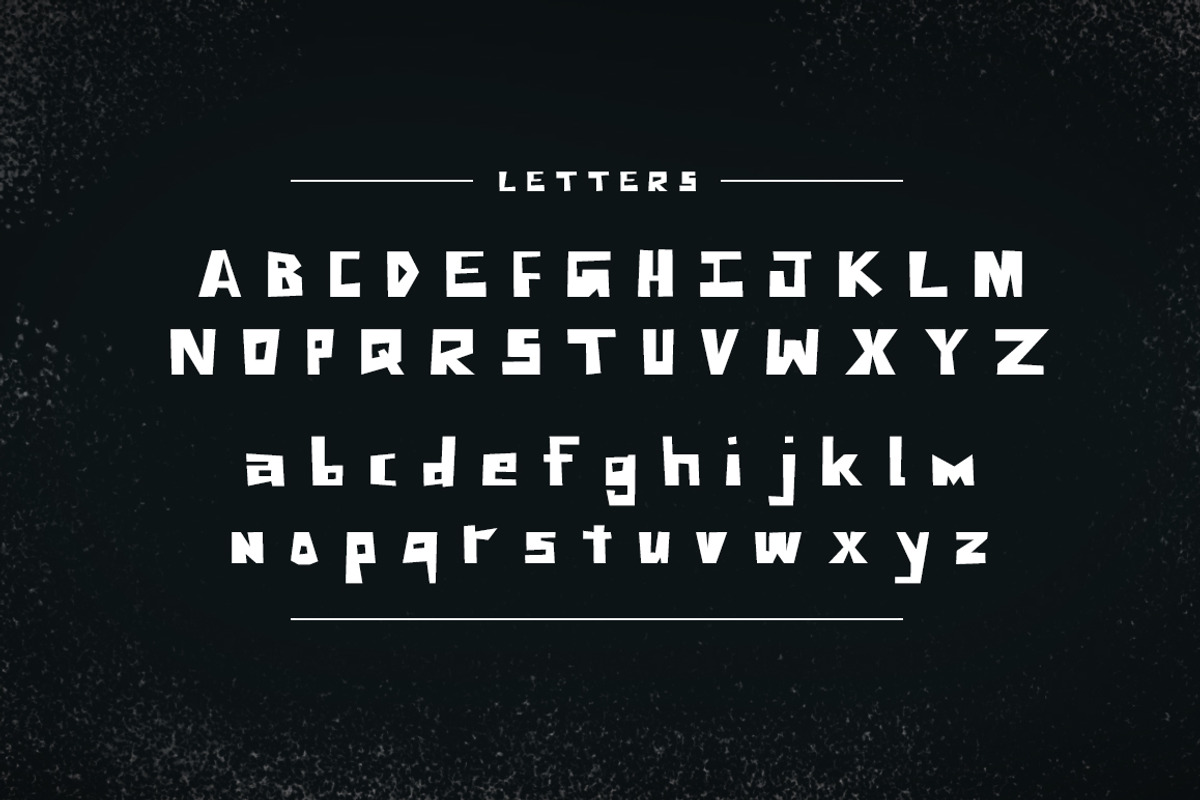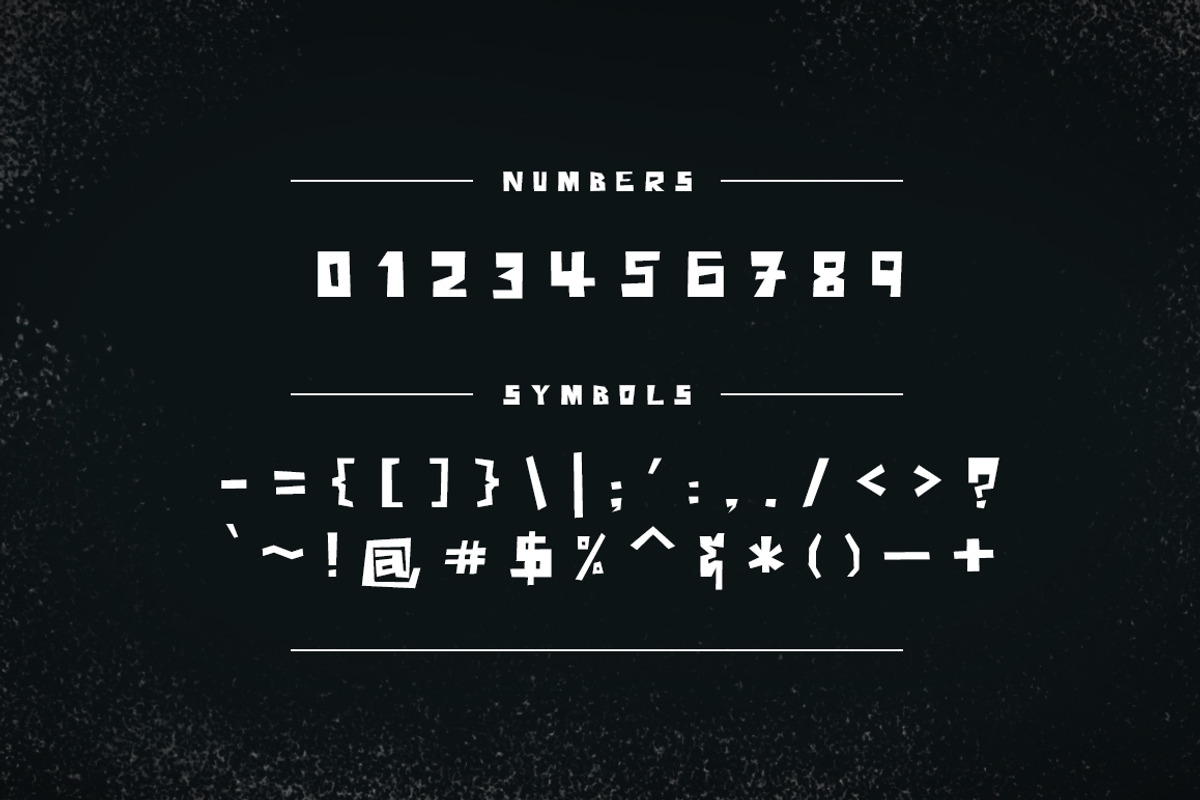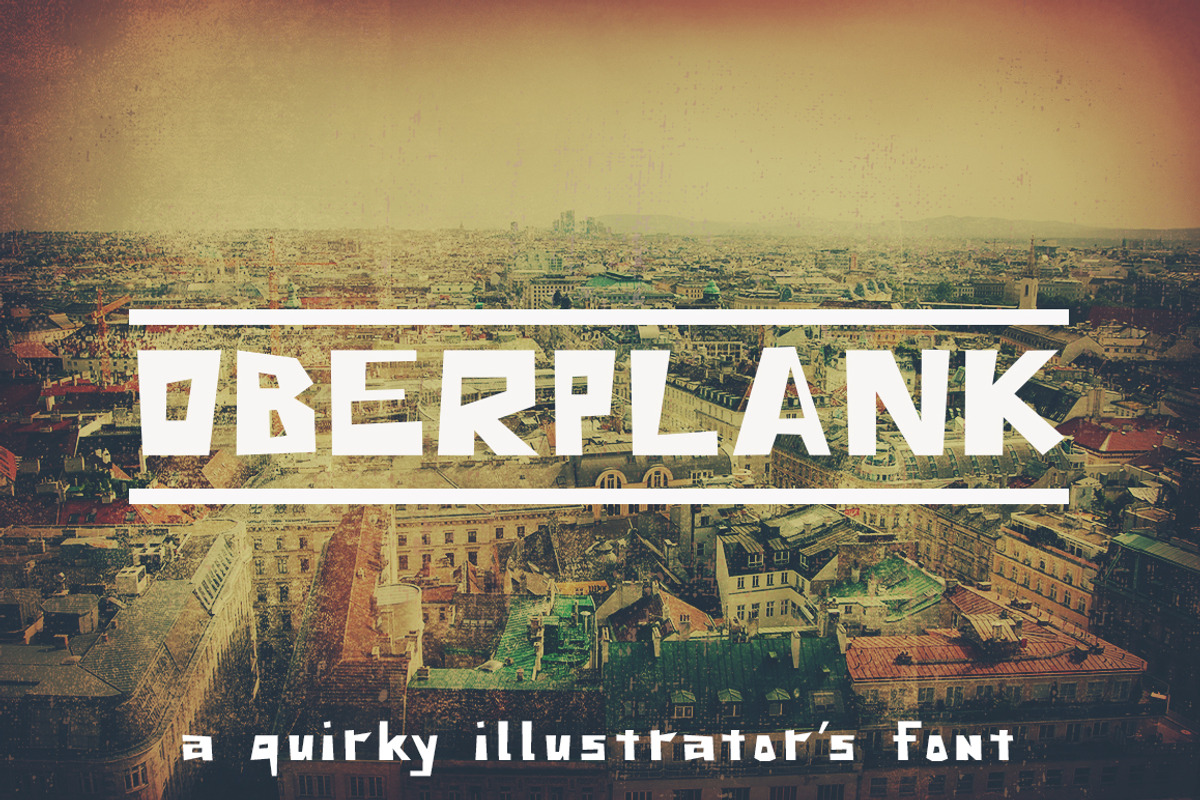
Oberplank Font
Oberplank is a Woolly Pixels sans serif font. It is well suited for hardline vector illustrations and also great for logos, labels, posters, t-shirts and many other design projects.
Why Oberplank Font is worth a look
Oberplank Font by Woolly Pixels fits naturally into Branding, posters, packaging, typography.